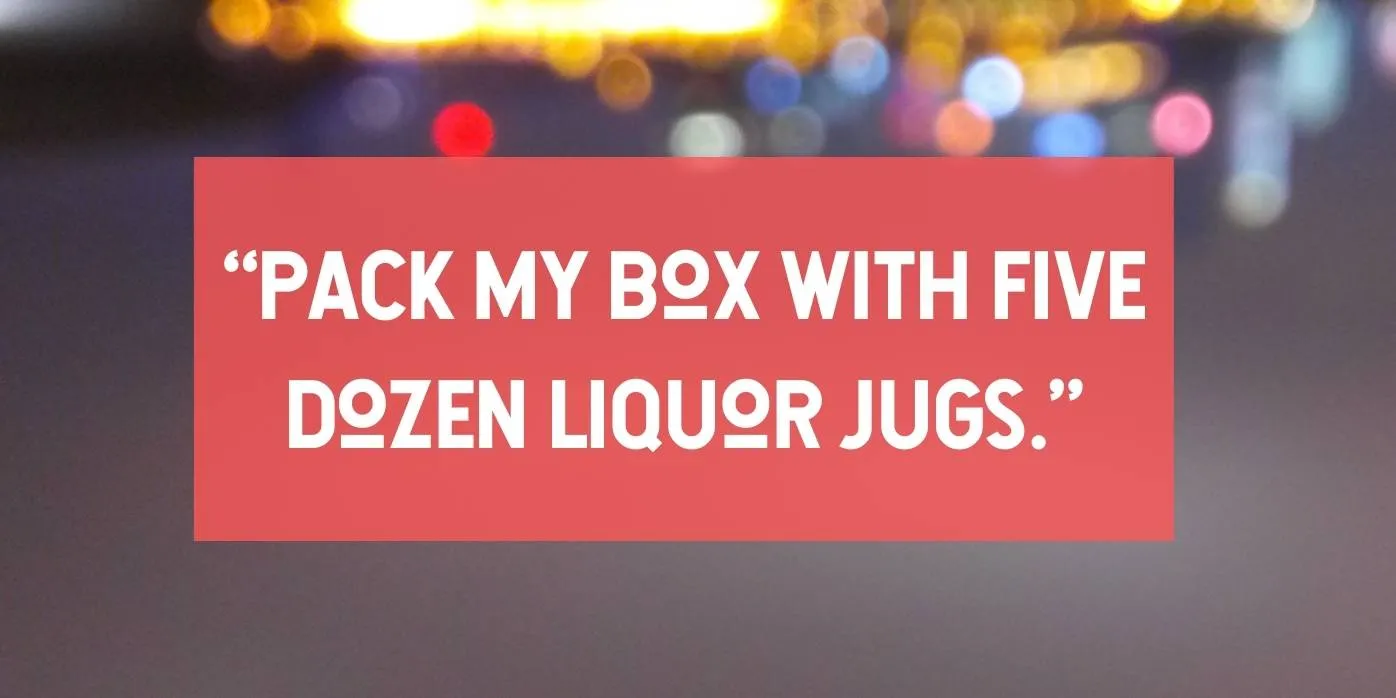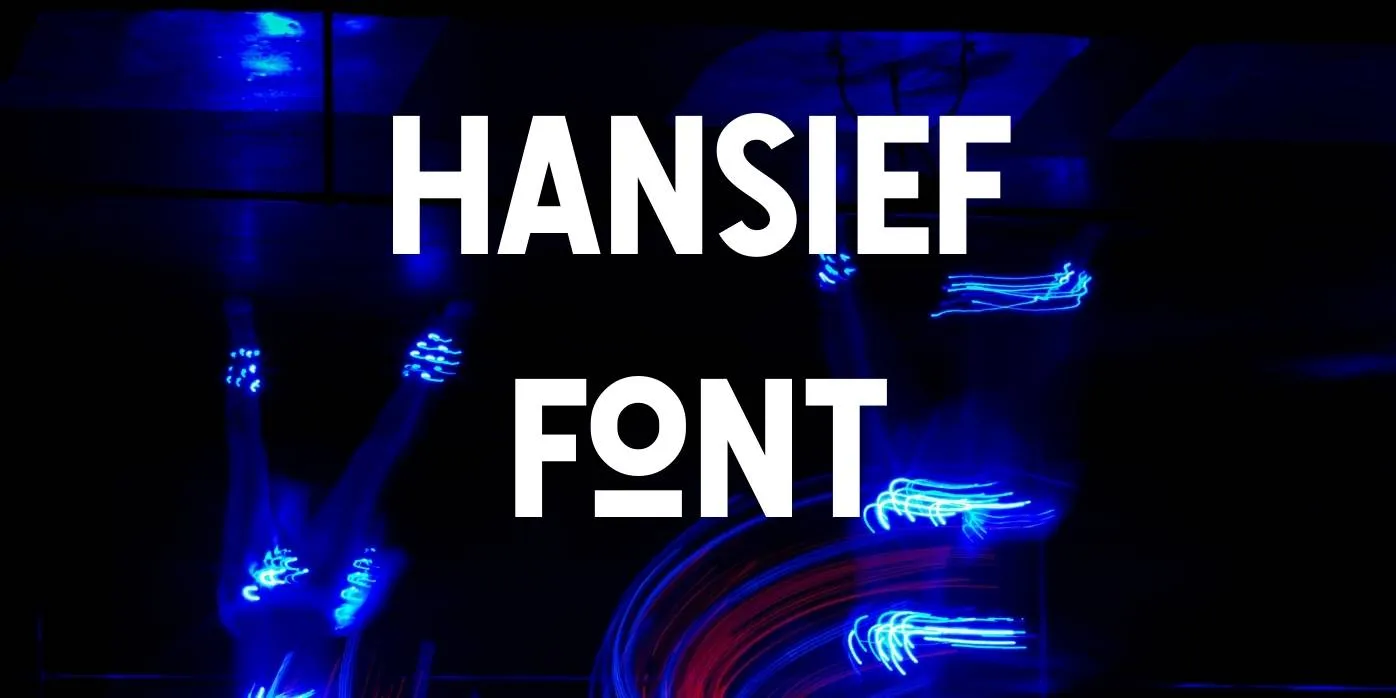
Hansief Font
Hansief Font is a very amazing font designed by Kautsar Rahadi. It is a sans-serif font with 9 weights from thin to black and has a wide variety of OpenType features. It is ideal for both body text and headings and can be used for both print and web projects. This typeface is most commonly used for Adobe Photoshop.
This cozy typeface is also available in two unique and outclasses styles that are Rough and regular. It has some distinctive characters with a tail and with a little curl. It is available in Google font but you can easily get it from our websites. Sesame Street Font is similar to this cute font family and works in similar manners.